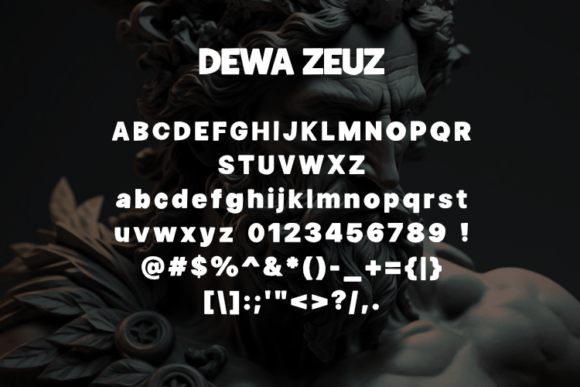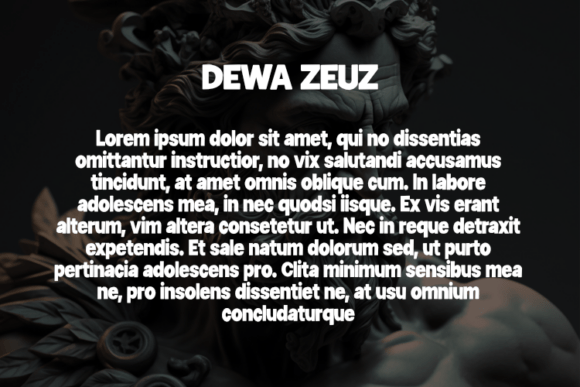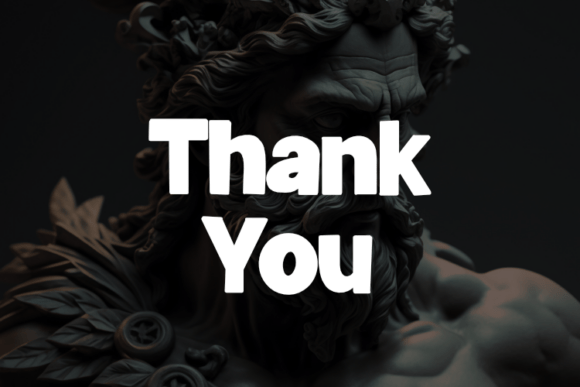
Introduction to Dewa Zeuz Font
Embrace the sleek and contemporary aesthetic of β€œDEWA ZEUZ”, a font specifically crafted to redefine clothing design, garment prints, and a wide variety of products.
Key Features of Dewa Zeuz Font
Why Choose Dewa Zeuz Font?
Dewa Zeuz Font offers exceptional quality and versatility, making it a valuable addition to your design toolkit. Whether you’re creating for personal projects or commercial use, Dewa Zeuz Font delivers professional results.